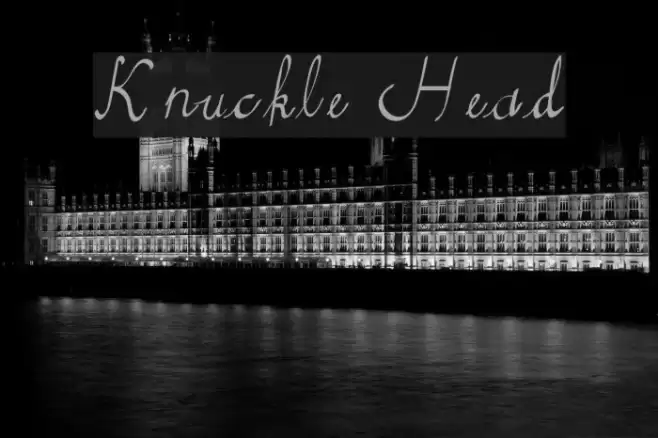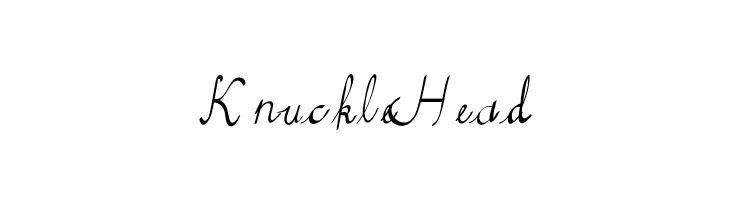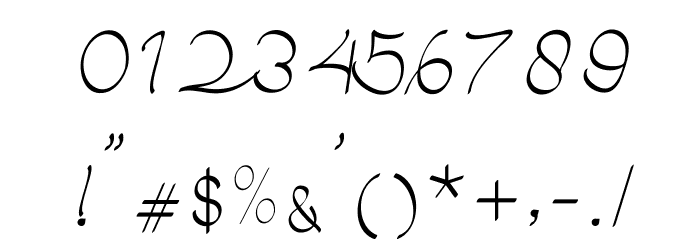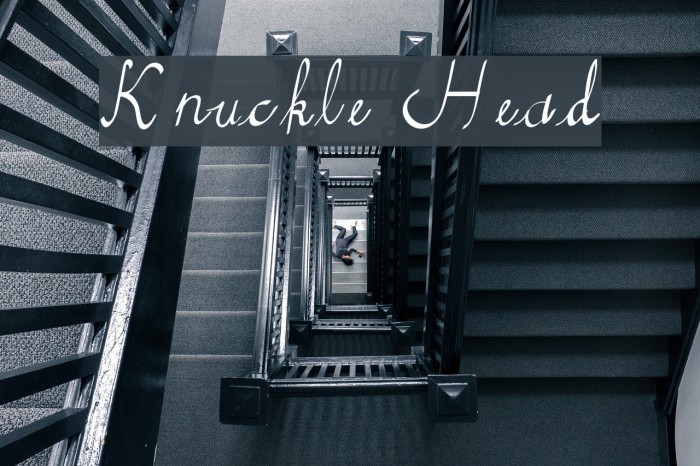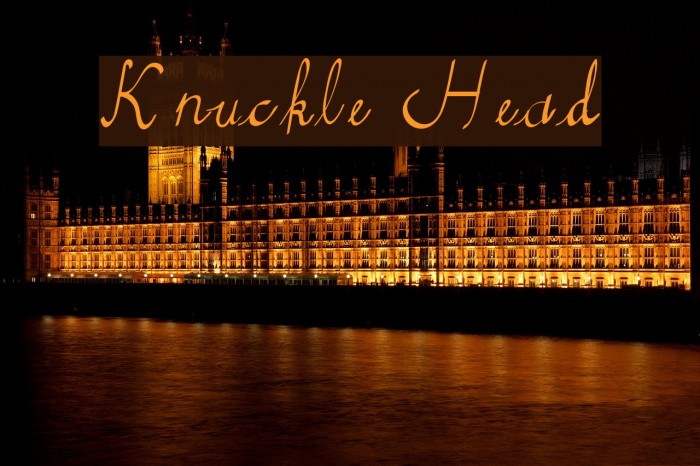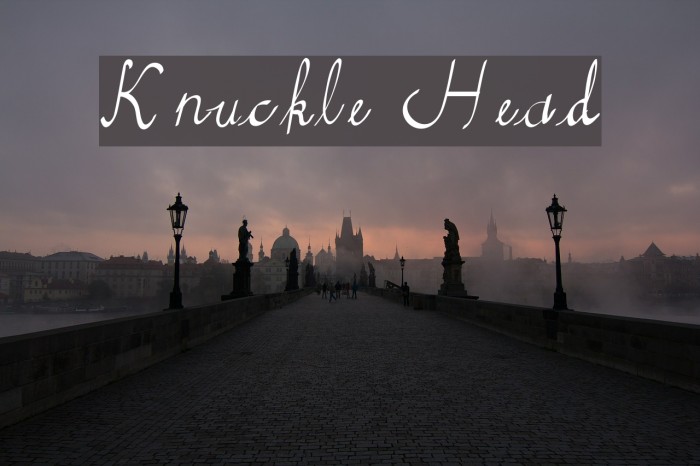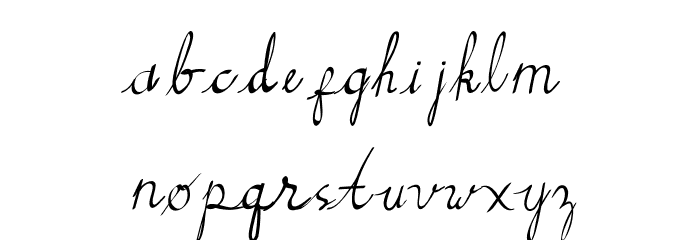
Knuckle Head Font
Knuckle Head Description
This elegant script font features a flowing, cursive style with a sophisticated flair. The uppercase letters are characterized by sweeping curves and delicate loops, giving them a graceful appearance. The lowercase letters maintain a consistent flow, with some characters extending below the baseline, adding to the font's fluidity. The numerals are distinct yet harmonious with the overall script style, offering a refined look. Special characters are thoughtfully designed to complement the alphabet, ensuring versatility in various applications. This font exudes a sense of elegance and charm, making it suitable for formal invitations, branding, and decorative purposes.
A graceful script font with flowing, cursive characters and elegant loops from Uncategorized fonts.
- Overall Style: Elegant